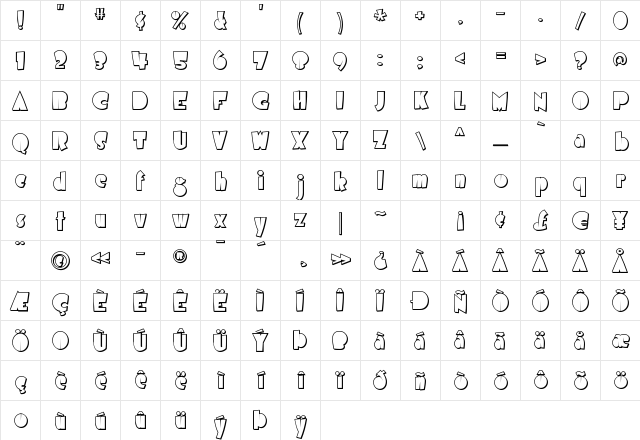
Airmole Shaded Regular Free Font
Airmole Shaded Regular
Design Context for Airmole Shaded
Airmole Shaded is a composed and adaptable typeface that performs quietly and consistently across a wide range of design contexts.